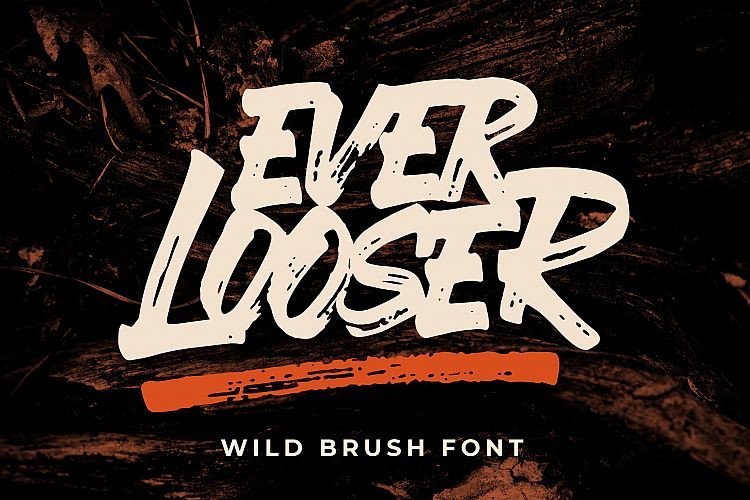
Ever Looser Brush Font
A new wild brush font by AZetype. This is a rough brush font with a clear style and good flow This font is great for your next creative project. Presenting Ever Looser Brush Font. A Wild Brush Font with a distinct texture. This font made with the perfect combining of each character. You can type by Mix & Match to get a unique combining. It looks original and can be used for all your project needs. Each glyph has its own uniqueness and when meeting with others will provide dynamic and pleasing proximity. This font can be used at any time and any project. You can see in the presentation picture above, EVER LOOSER looks ‘wild’ on design projects.
So, EVER LOOSER FONT can’t wait to give its touch to all your design projects such as environment campaigns, quotes, poster design, cover book design, promotional materials, t-shirt, hoodie, product packaging, simply as a text overlay to any background image, etc.